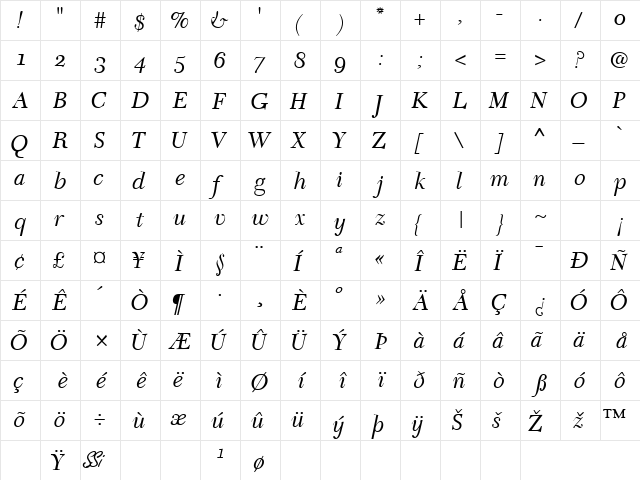
TycoonOSSSK Regular
Design Context for TycoonOSSSK Typeface
TycoonOSSSK is a composed and adaptable typeface that performs quietly and consistently across a wide range of design contexts.